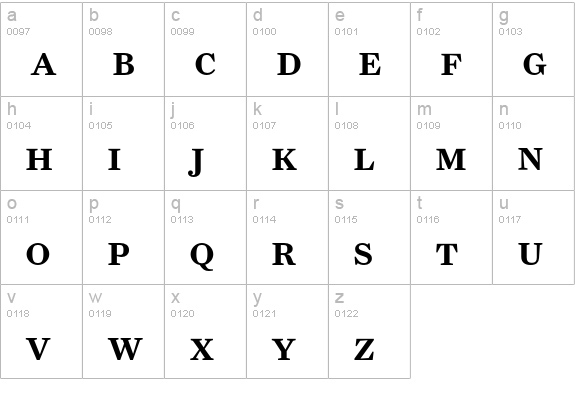
FarnhamDisplay-MediumSC font is a sophisticated and elegant typeface that exudes timeless charm and versatility. With its classic yet modern design, this font is perfect for a wide range of design projects, from branding to editorial layouts. The medium weight of the font strikes the perfect balance between readability and impact, making it ideal for headlines, titles, and subheadings. What sets FarnhamDisplay-MediumSC apart is not just its stunning aesthetic appeal, but also the fact that it is available for free download at FontsMarket.com. This means that you can add this exquisite font to your collection without any cost, making it a valuable resource for designers, creatives, and typography enthusiasts alike. Whether you're working on a print advertisement, website design, or any other project that requires a touch of sophistication, FarnhamDisplay-MediumSC is sure to elevate your work with its timeless elegance and style. Download it for free today and see the difference it can make in your designs.